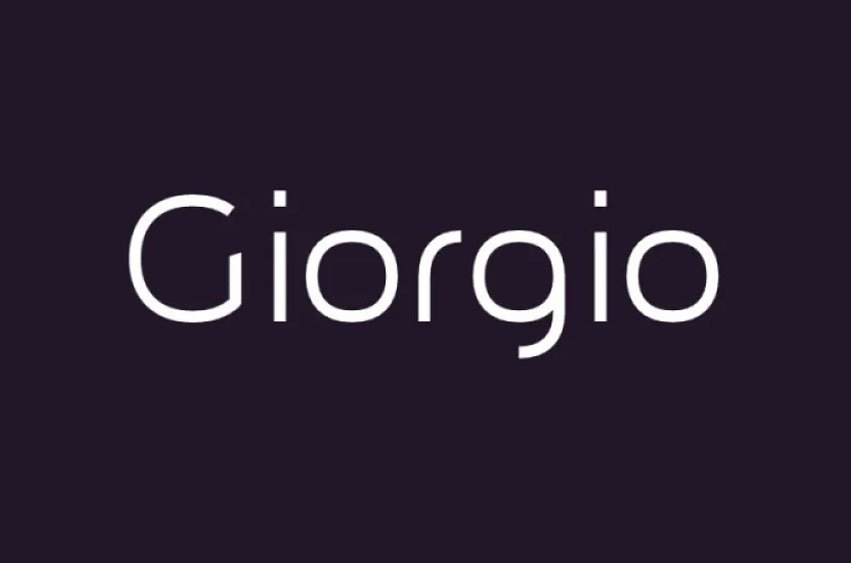
Giorgio Font
Giorgio Font is a labor of love and dedication. This font is pensive, and apt to the task at hand. Giorgio comes in a regular weight, as well as an elegant light weight version.
Giorgio is suited for any labor that you should require, from large type to smaller body text.